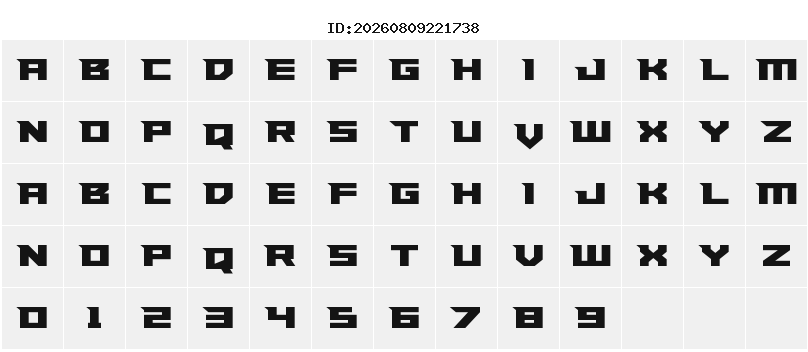
Paladins Straight Preview
About Paladins Straight.ttf
Paladins Straight.ttf is a modern, elegant sans-serif font designed for ultimate readability and visual harmony. Perfect for branding, headlines, web design, and print materials.